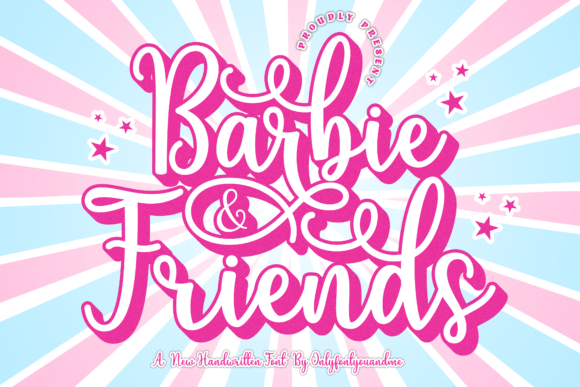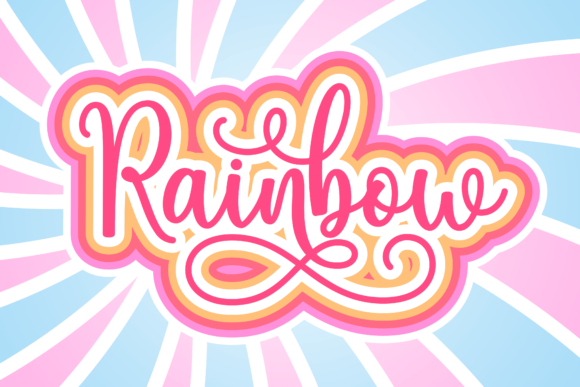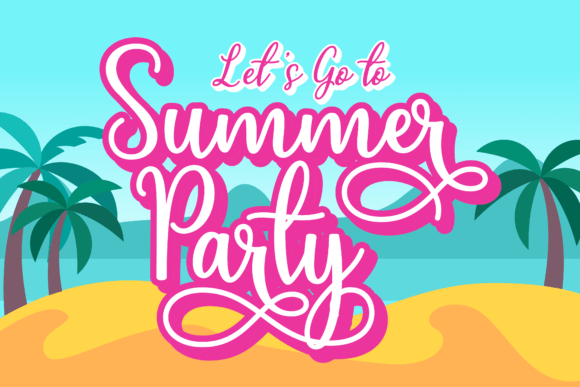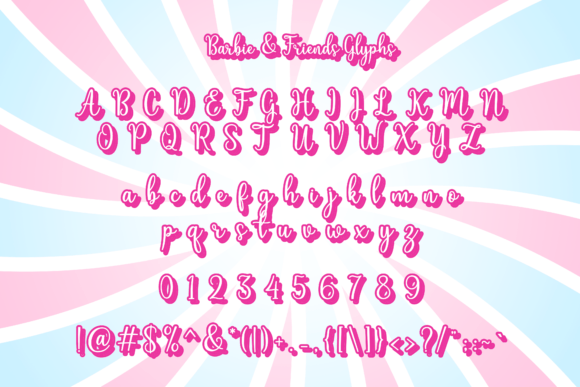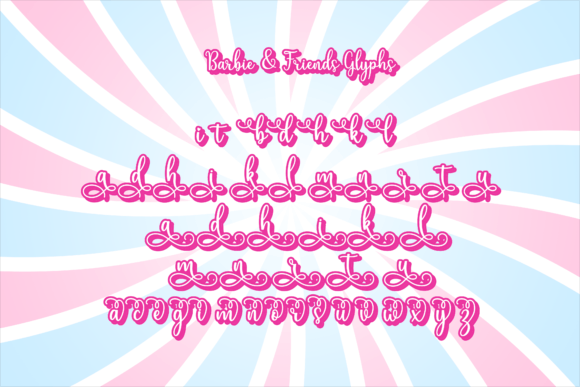
Barbie and Friends is a cute handwritten font that features a varying baseline, smooth line,and cute. Can be used for various purposes such as Sticker, wedding invitations, t-shirts, letterheads, posters etc.